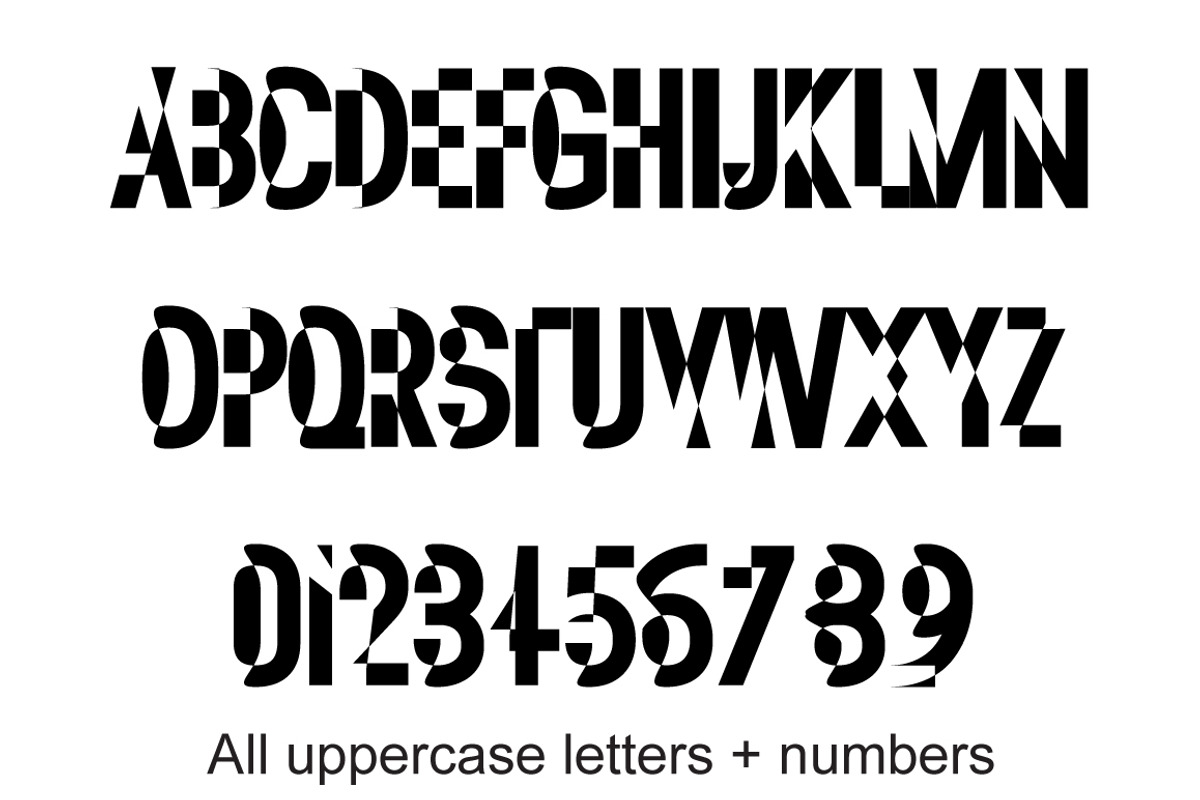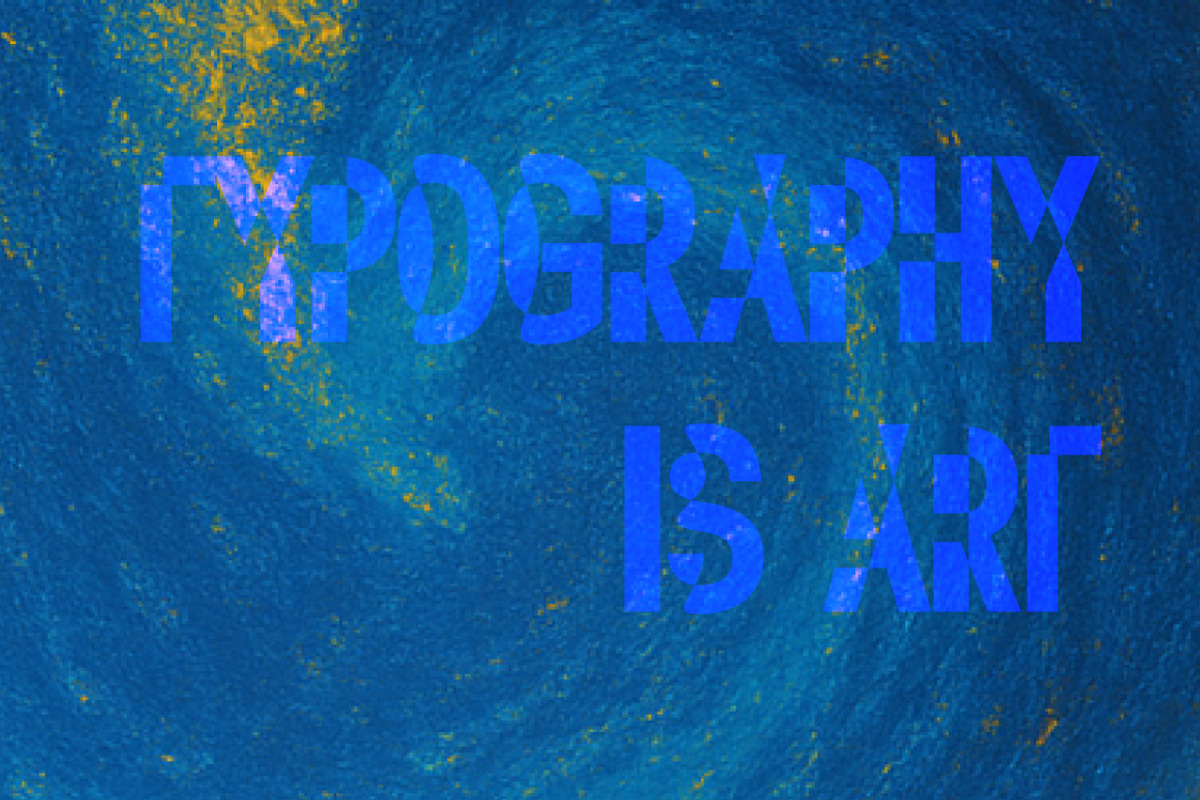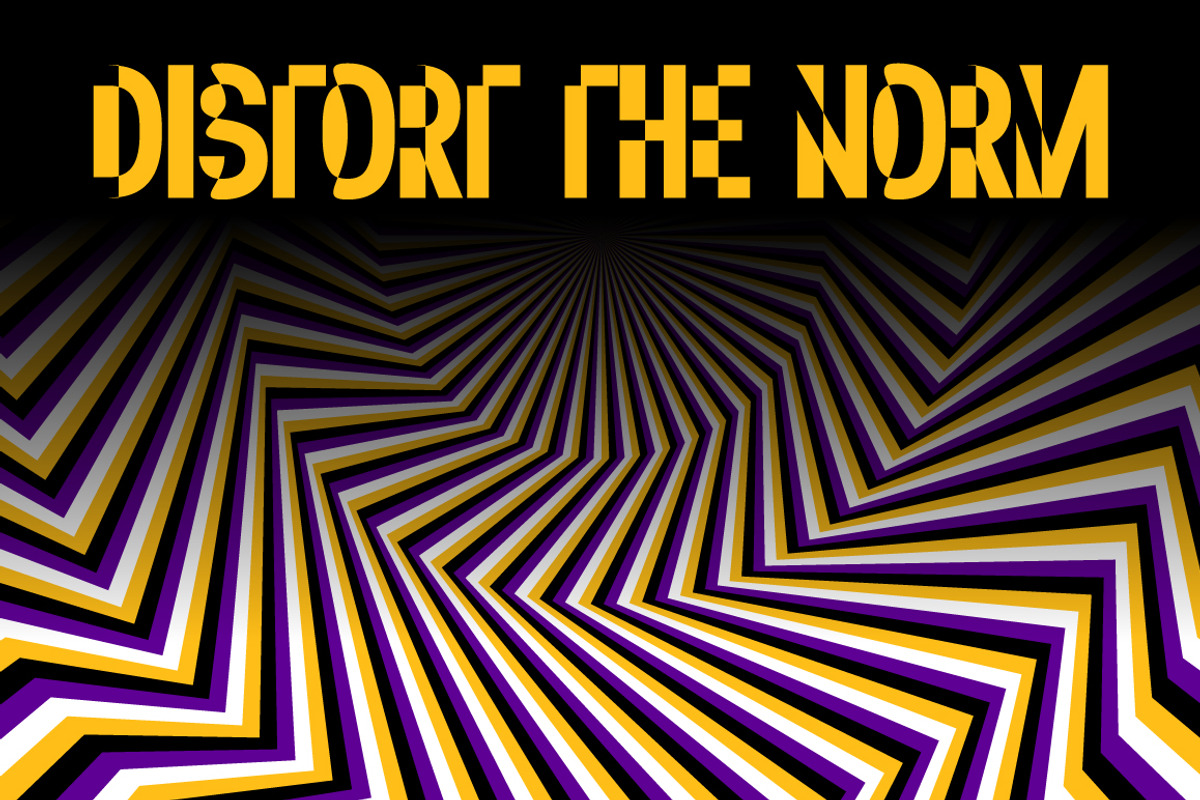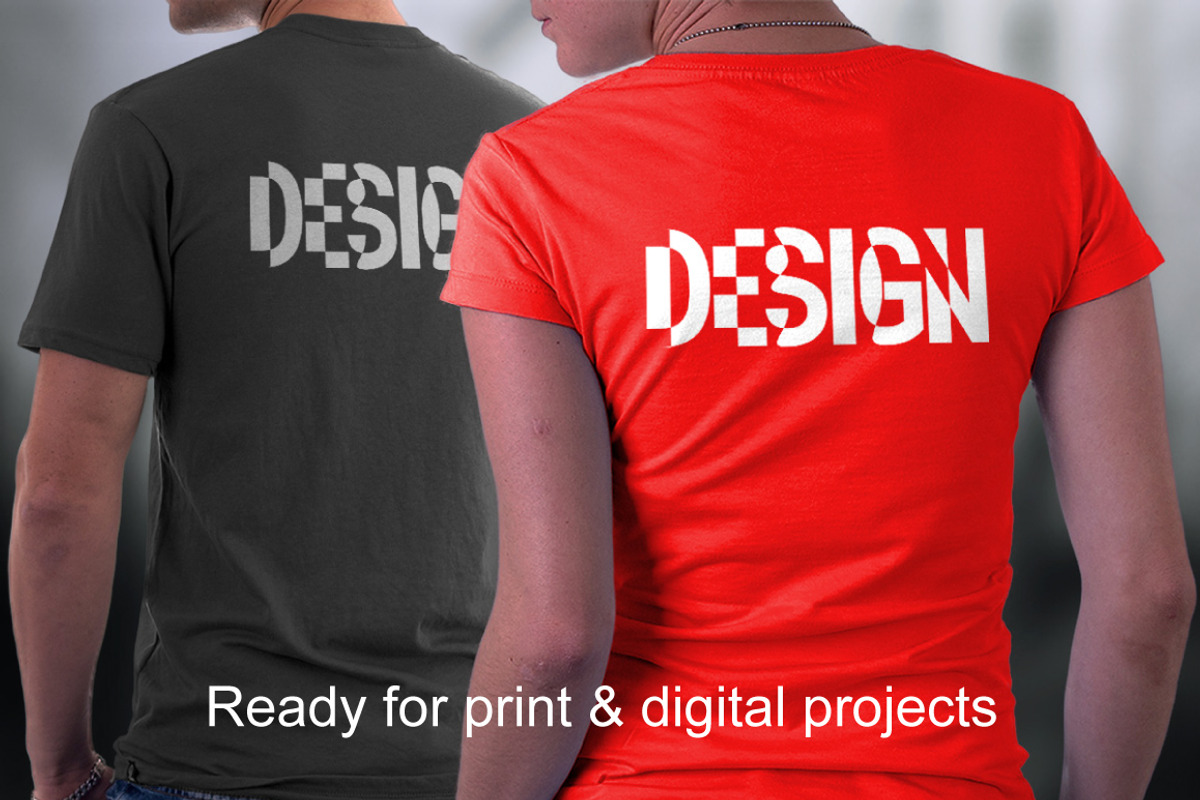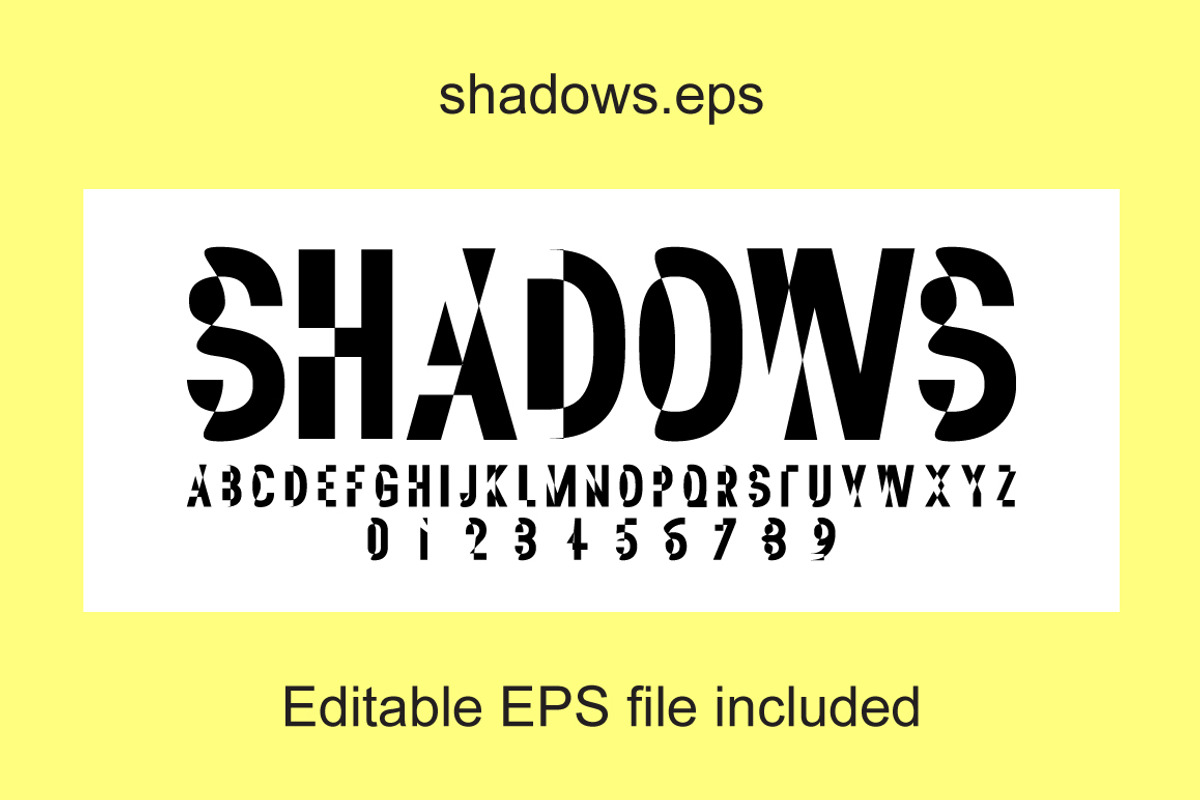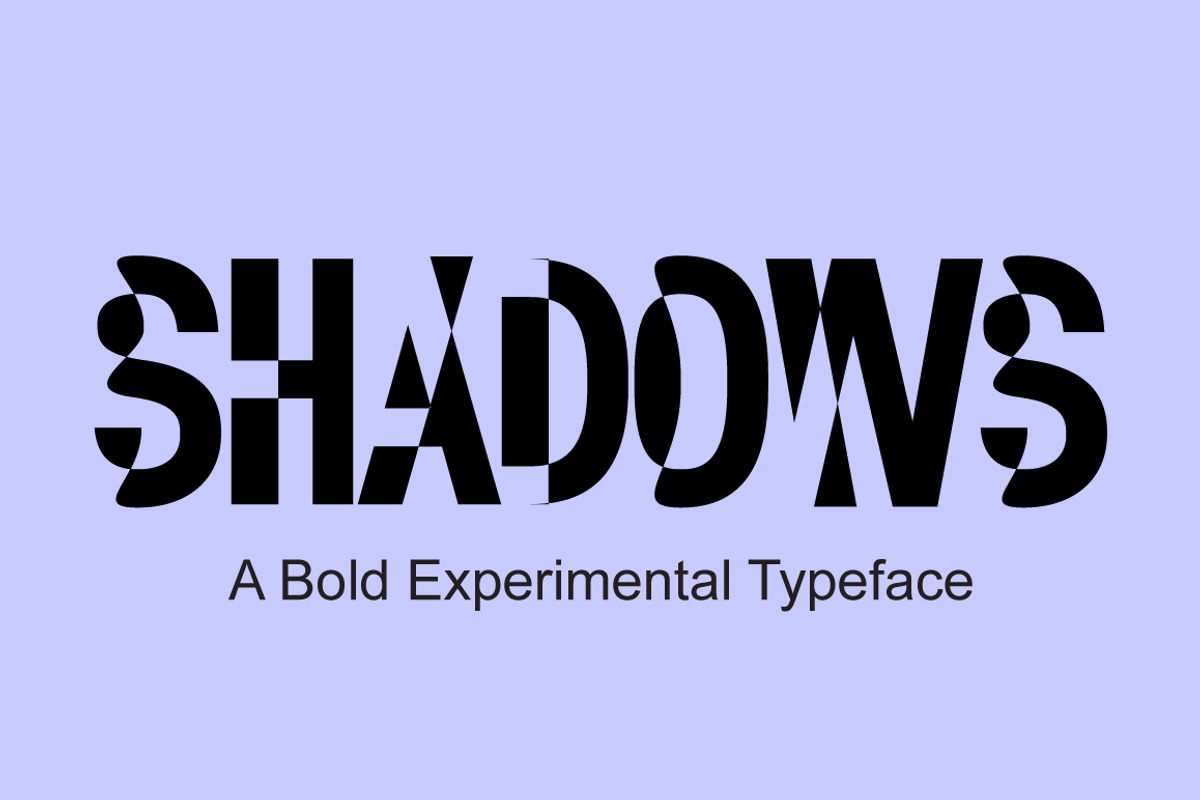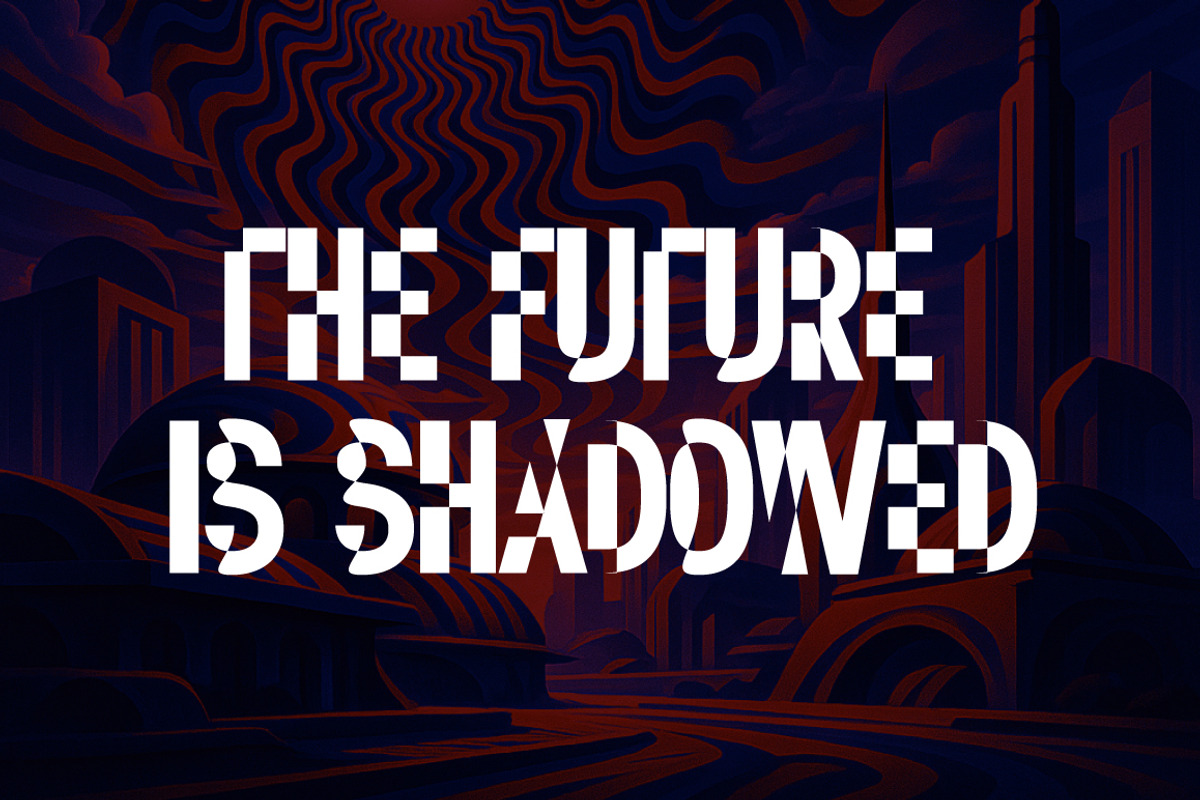
SHADOW Experimental Display Font
SHADOW is a bold and experimental display typeface crafted for standout visual impact. Each letter and number is split, sliced, or shadowed with precision to create a dynamic, optical illusion effect — perfect for posters, covers, branding, futuristic design, album art, or anything that needs to command attention.
This font is uppercase only and includes A–Z and 0–9. Ideal for modern, abstract, or conceptual projects.
- All caps
- Numbers included (0–9)
- Unique shadow & slice style
- Perfect for editorial, titles, digital art, and sci-fi themes
Let your typography speak louder with SHADOW.